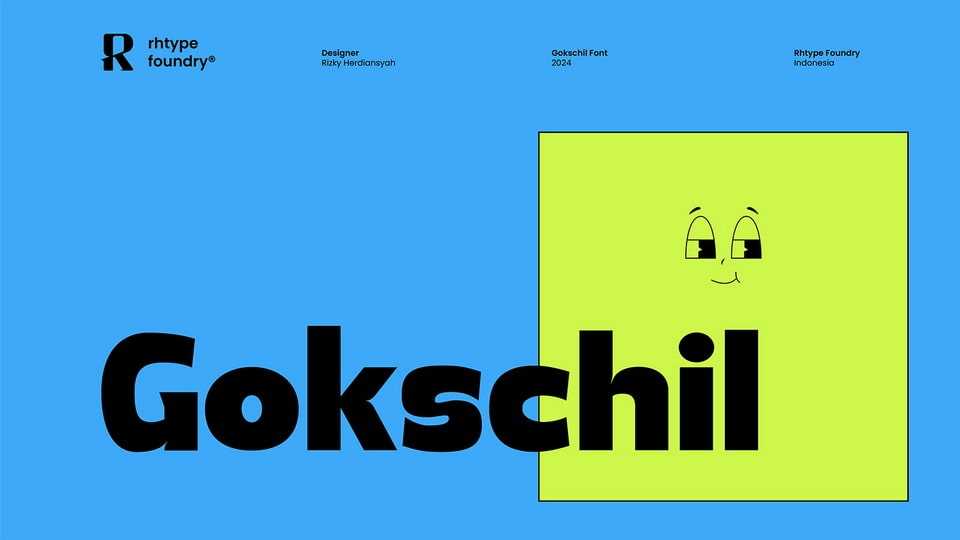
Download Gokschil font, an incredibly adorable display typeface with its own unique characteristics. Gokschil’s playful design adds a touch of whimsy to any project.